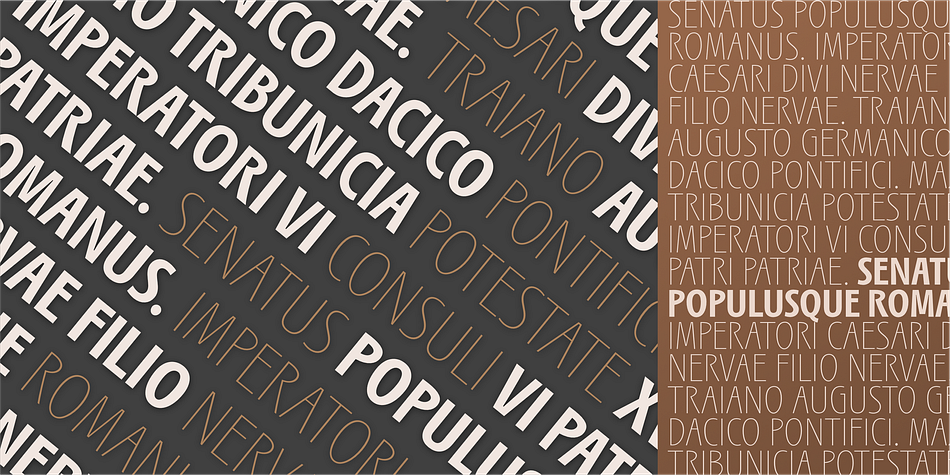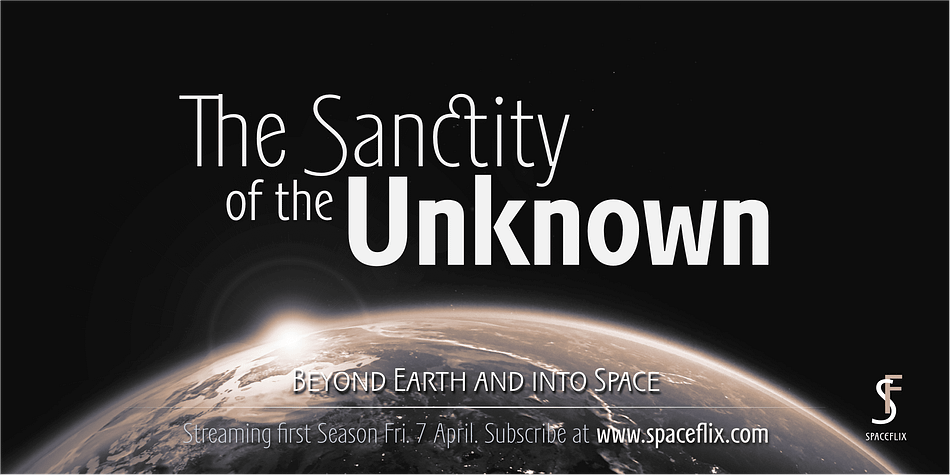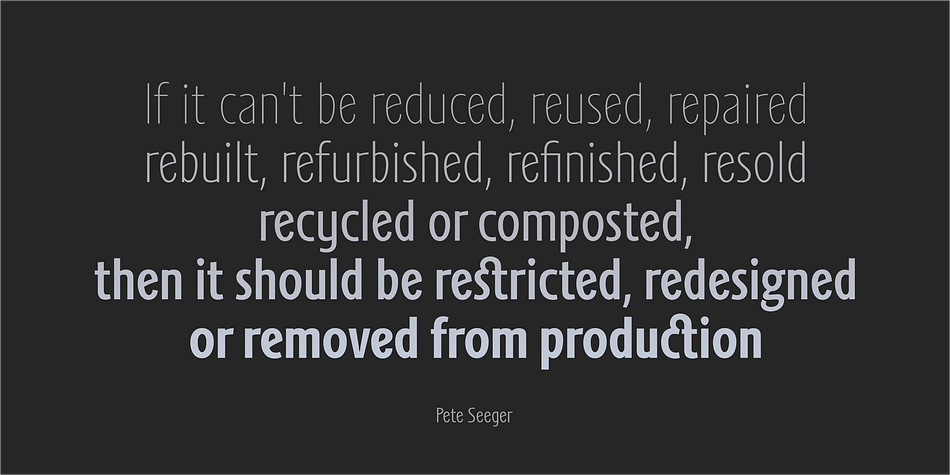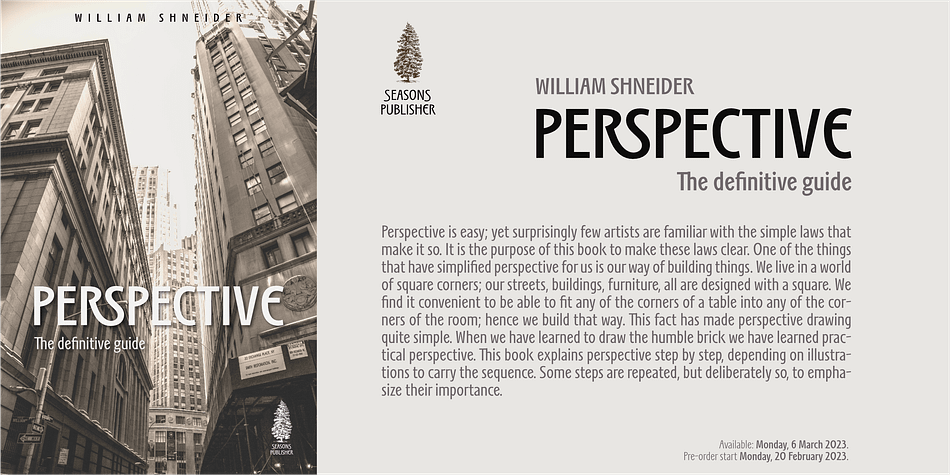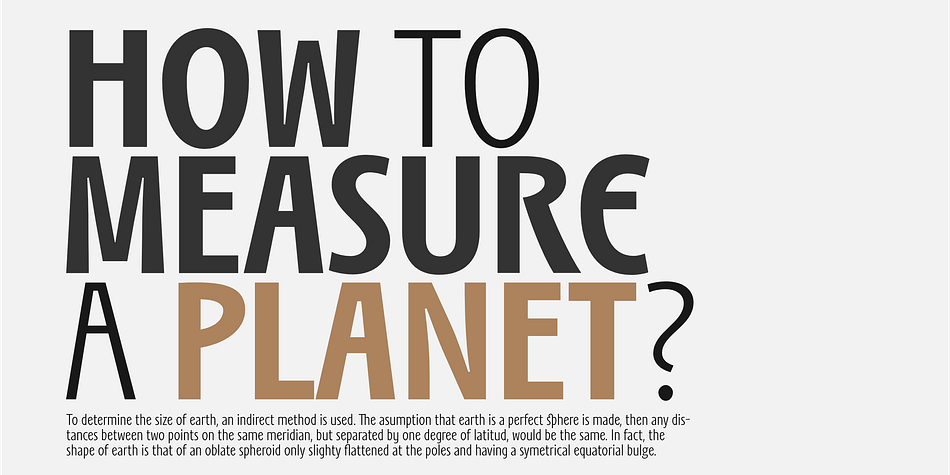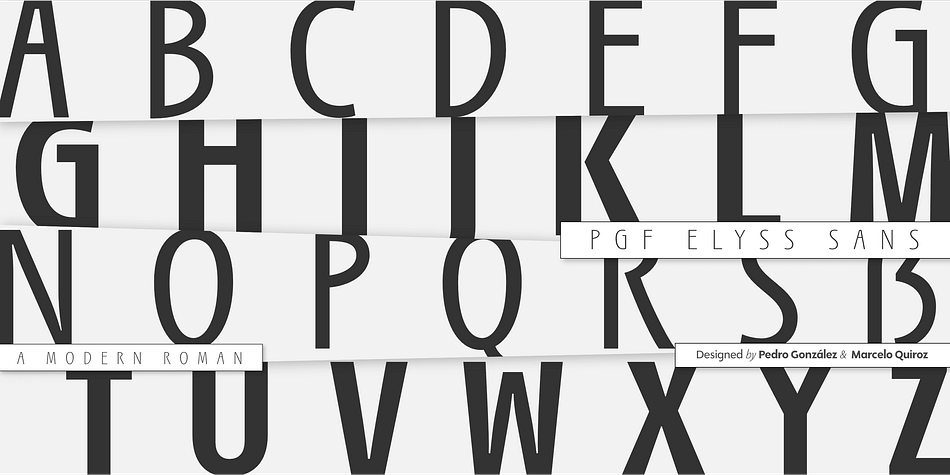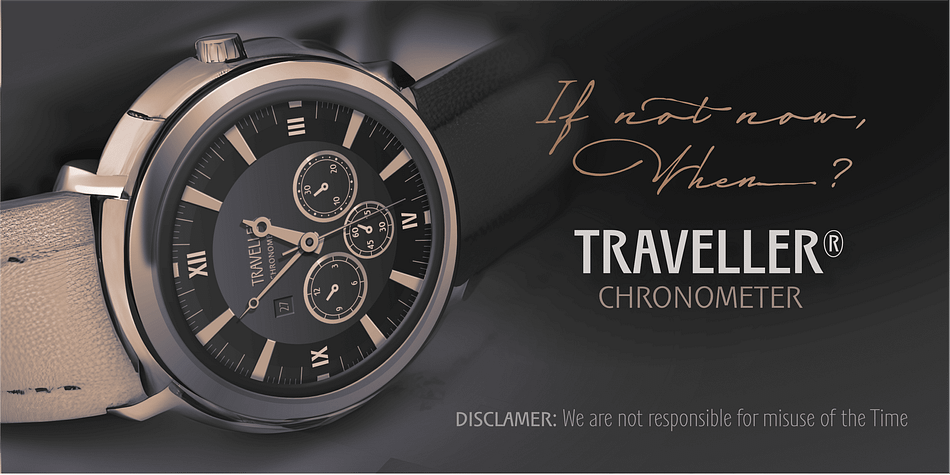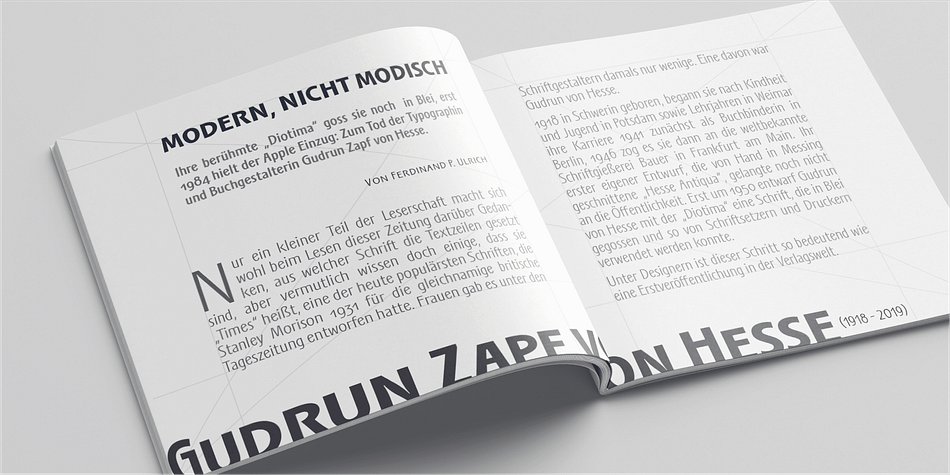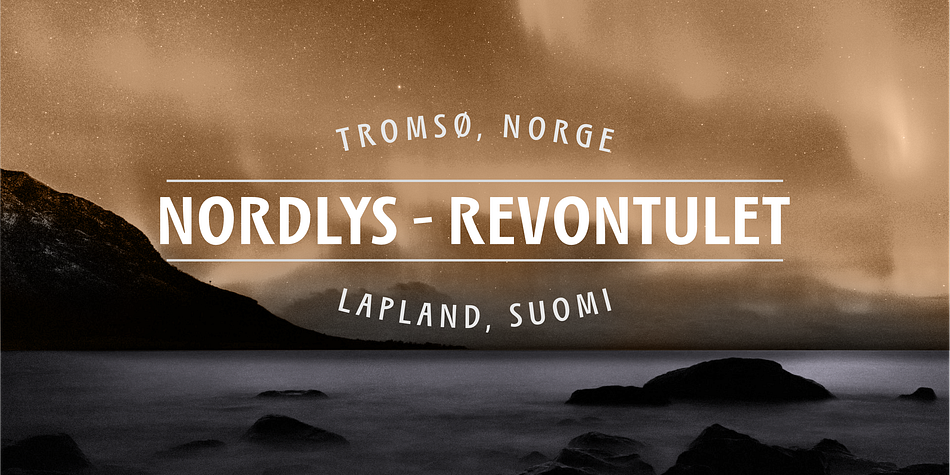
PGF Elyss Sans
Designed by PeGGO Fonts, Marcelo Quiroz and Pedro Gonzalez Jorquera, PGF Elyss Sans is an art nouveau and sans serif font family. This typeface has seven styles and was published by PeGGO Fonts.
PGF Elyss Sans is based on its previous family relative PGF Elyss Roman. With clean and modern lines, but preserving the original Roman style, created to be in labels, invitation, website design, digital graphics, book headlines & titles, brochures, newspaper and magazines design, logotypes, branding and corporate design and much more. In seven weights with more than 900 glyphs each, and ready for more than 200 languages.
Including: Standard and Discretionary Ligatures, Contextual Alternates, Scientific and fractional forms, Lining, Old Style and Tabular figures (Numerals, Mathematical operators and Currency Symbols), SmallCaps (alphabet, numerals and symbols), Social Network & Letter alike symbols, Localized language customization (for Azeri, Crimean Tatar, Tatar, Kazakh German, Dutch, Polish, Catalan, Romanian, Moldavian and Turkish).